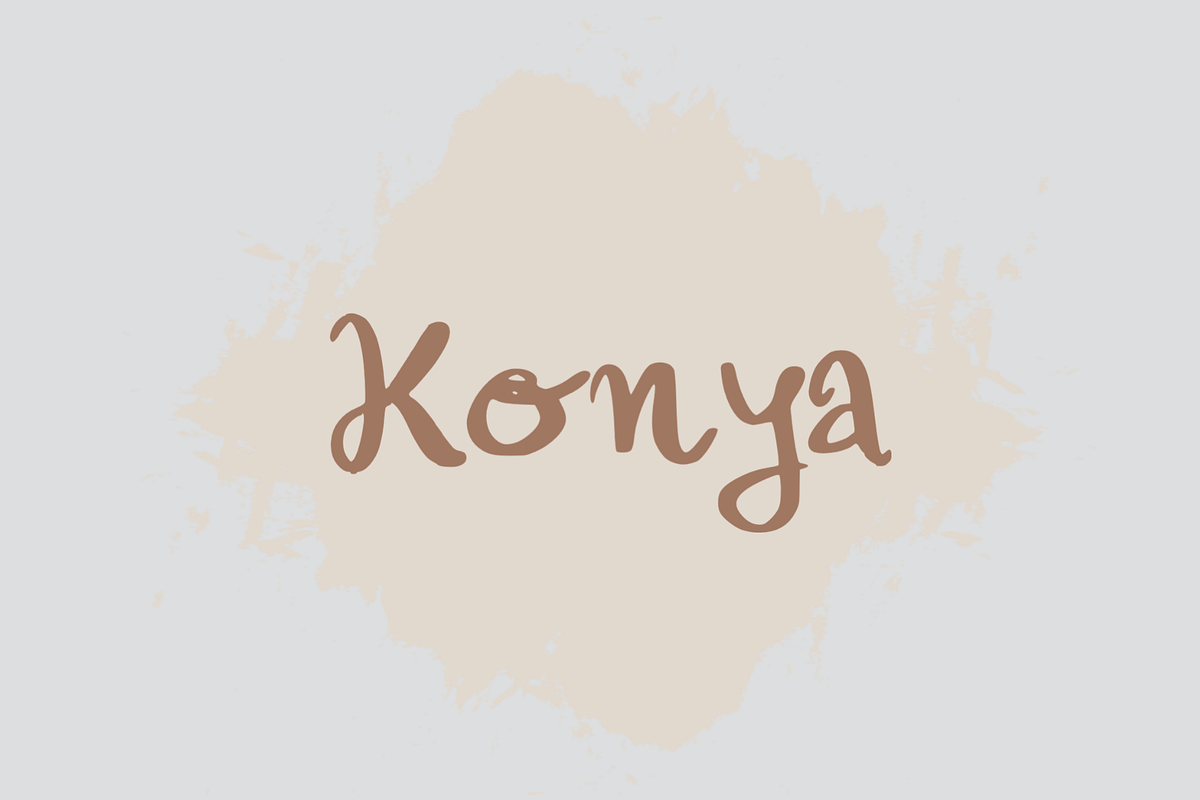
Konya Handwritten Script Font Free Download brings elegance, warmth, and a personal touch to your creative projects. With its smooth, flowing strokes and authentic handwritten style, this font is perfect for wedding invitations, personal branding, packaging, quotes, and any project that needs a touch of charm and personality.
Inspired by the artful script of calligraphy and the soulful vibe of handwritten notes, Konya is designed to evoke emotion and connection. Whether you're designing for romance, lifestyle, or beauty niches, this font fits seamlessly and adds a natural, handcrafted feel.
The Konya Handwritten Script Font Free Download is compatible with all major design platforms including Adobe Illustrator, Photoshop, Procreate, and more. It supports both uppercase and lowercase letters, along with lovely ligatures and alternate characters to keep your designs looking fresh and unique.